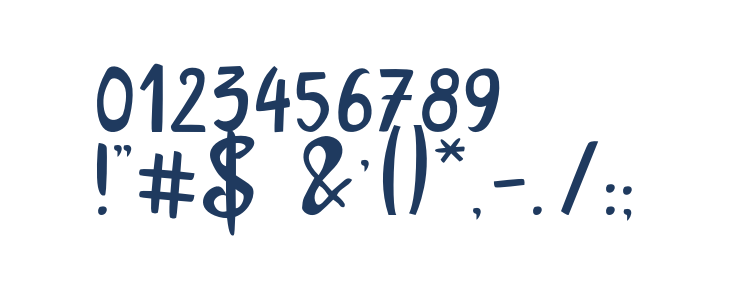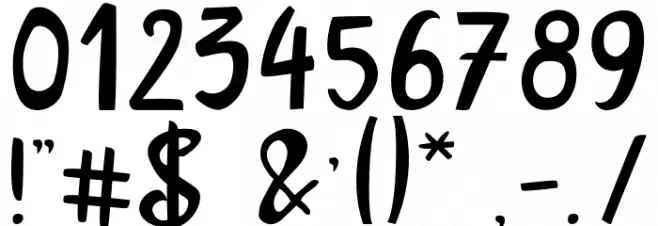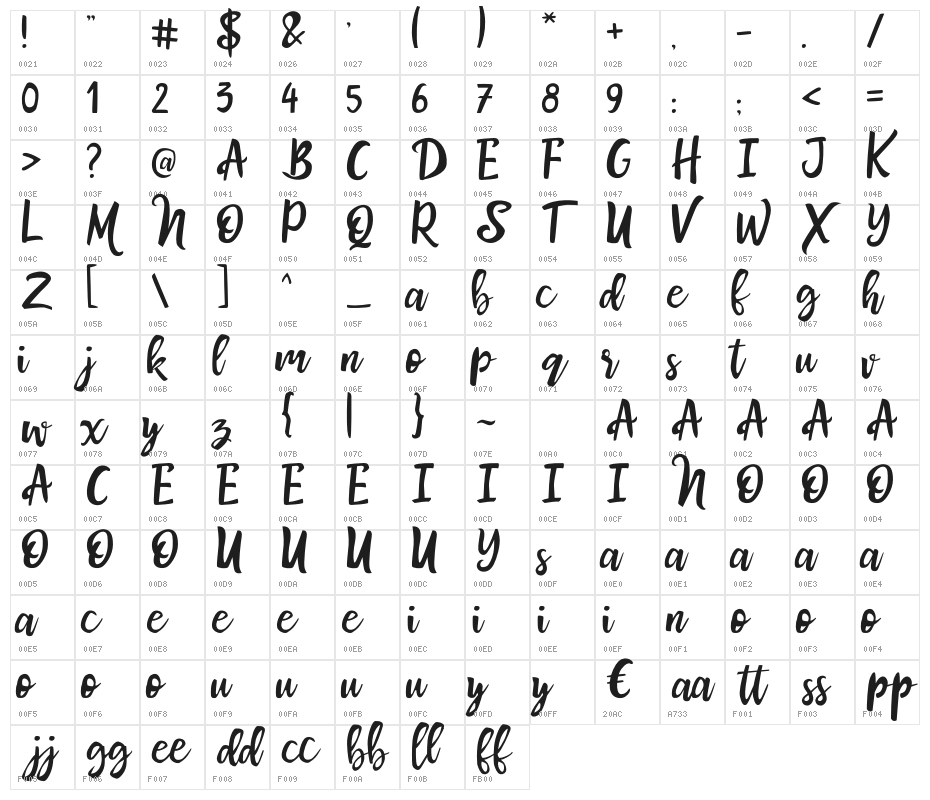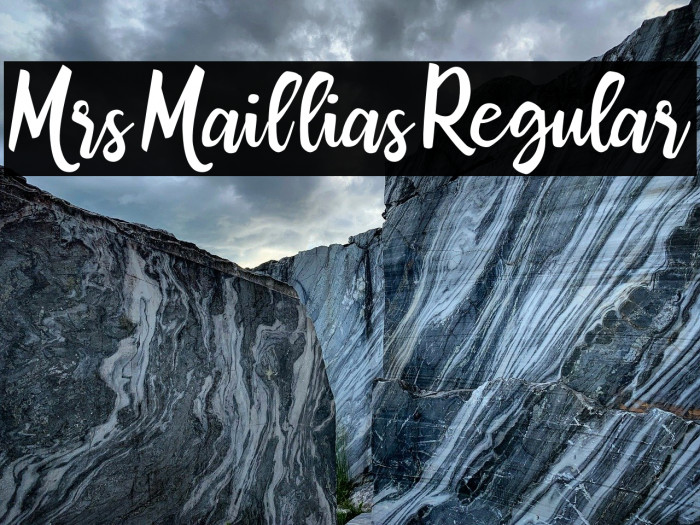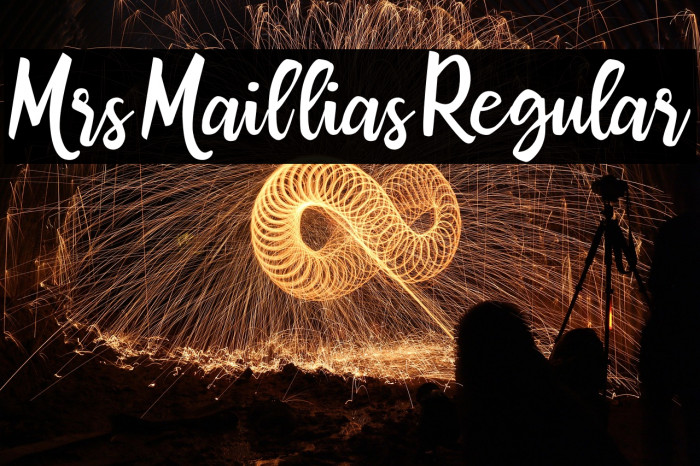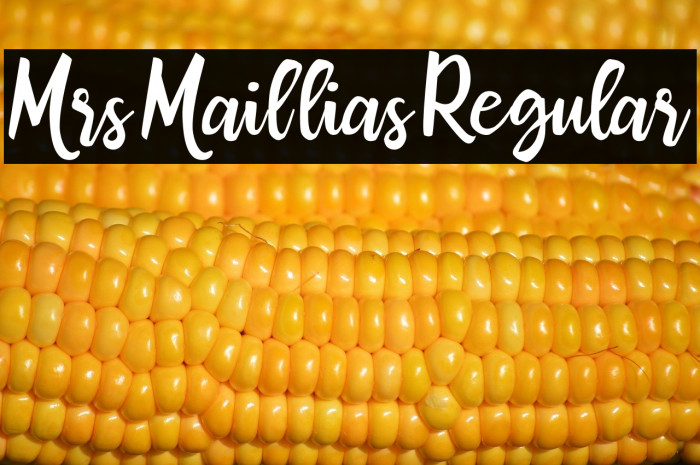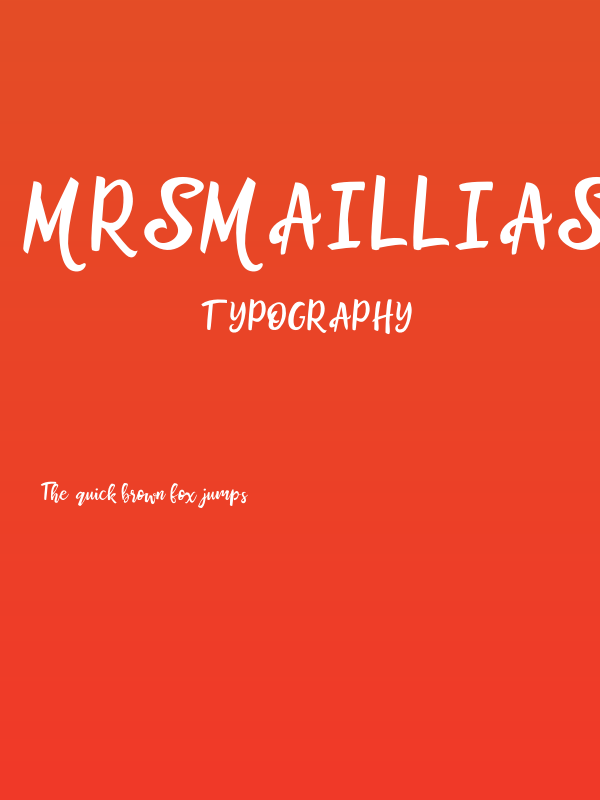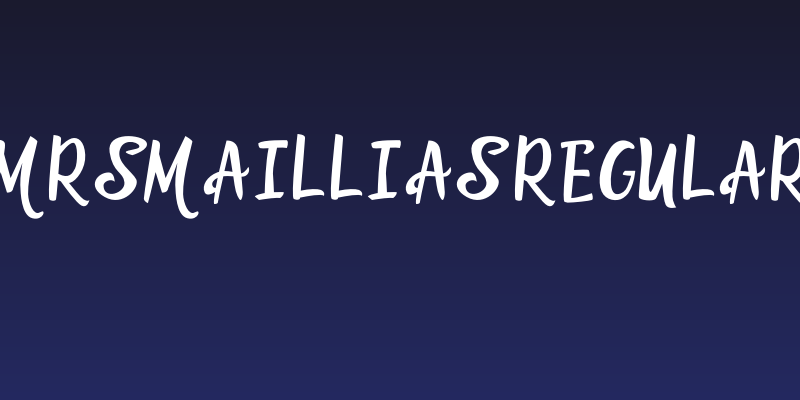
MrsMailliasRegular Font
MrsMailliasRegular Description
This font features a lively and dynamic handwritten style, characterized by its fluid and slightly irregular strokes that give it a personal and informal touch. The uppercase letters are bold and expressive, with a playful flair that adds a sense of movement. The lowercase letters maintain a consistent flow, enhancing readability while retaining the font's unique character. Numbers and special characters are designed to complement the overall style, ensuring versatility across different uses. The font's energetic appearance makes it suitable for projects that require a personal, friendly, and approachable feel.
| Proposed Projects | Ideal for greeting cards, invitations, branding, and social media graphics. |